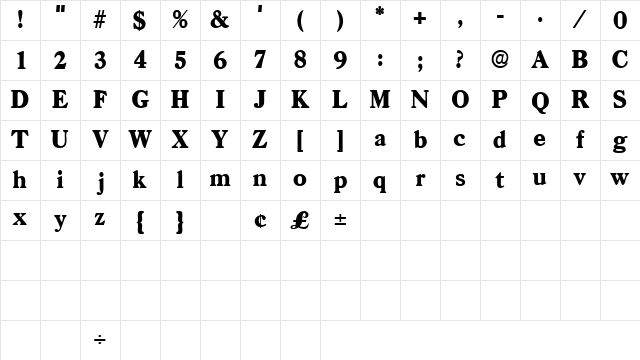
DendroDisplaySSK Regular Free Font
DendroDisplaySSK Regular
DendroDisplaySSK Family
Design Context for DendroDisplaySSK
DendroDisplaySSK is built around its visual character rather than neutral utility - its distinctive forms are designed to make an impression at display sizes.
Font Pairing: Pair with a clean neutral sans-serif for body copy to let DendroDisplaySSK's character lead without overwhelming the composition.
Pro Tip: Use DendroDisplaySSK exclusively at display sizes - it was designed to be seen, not read at length. Let a neutral companion handle body copy.